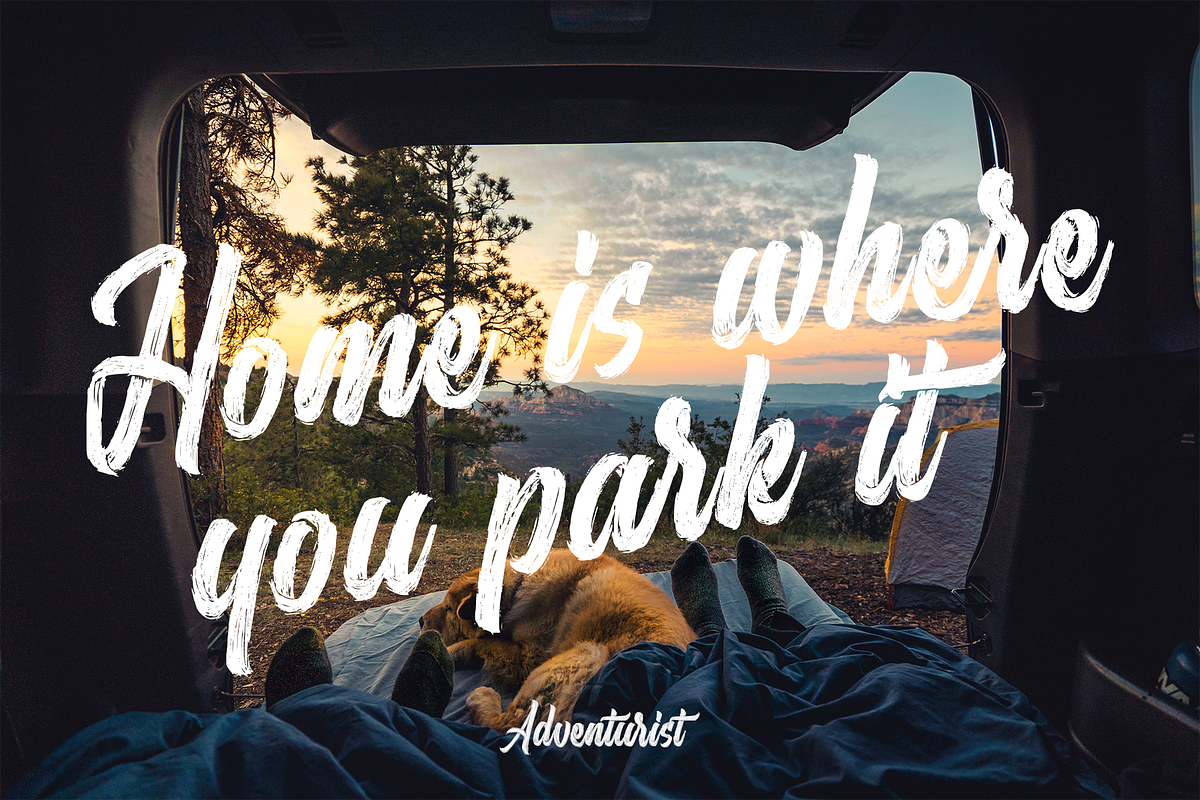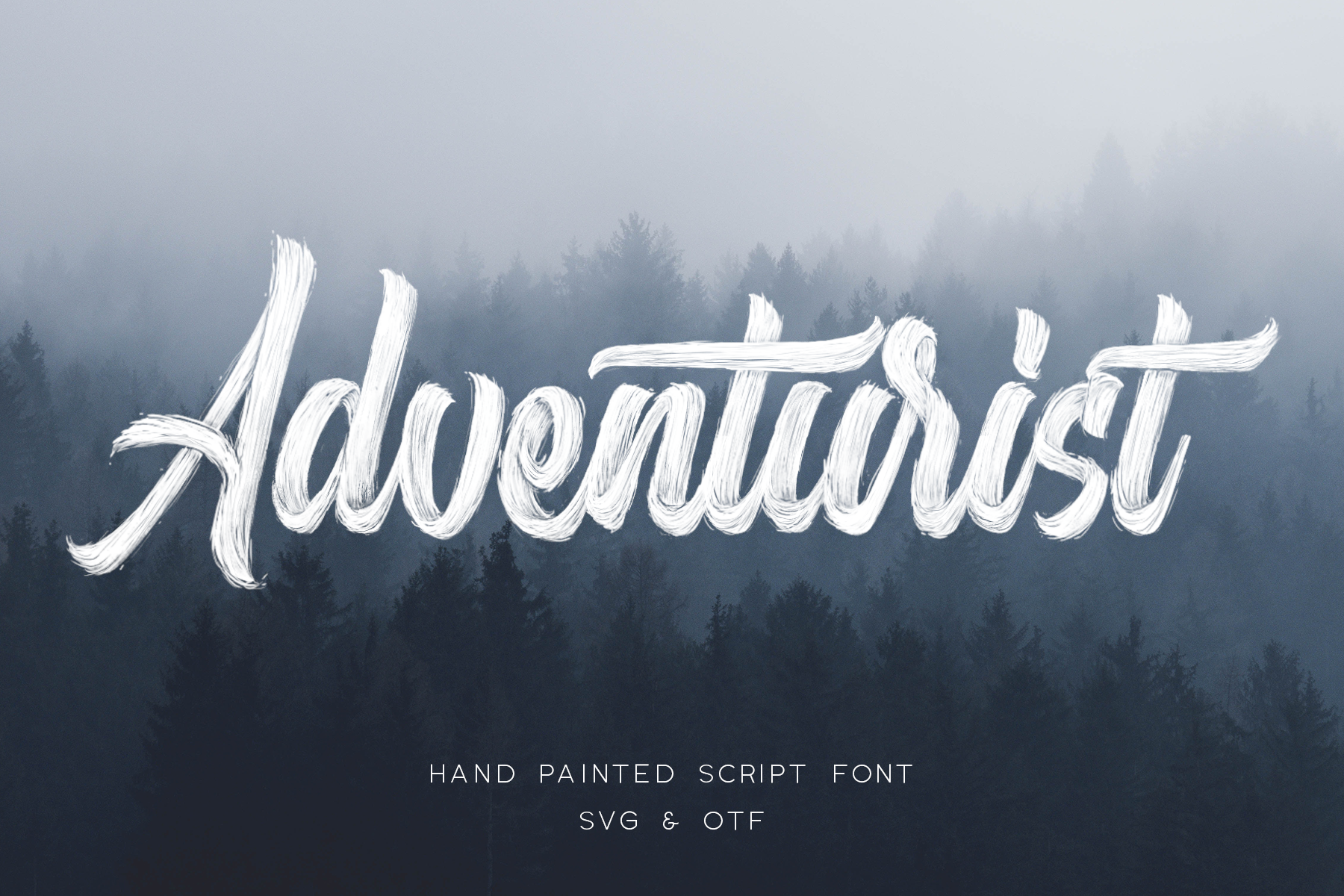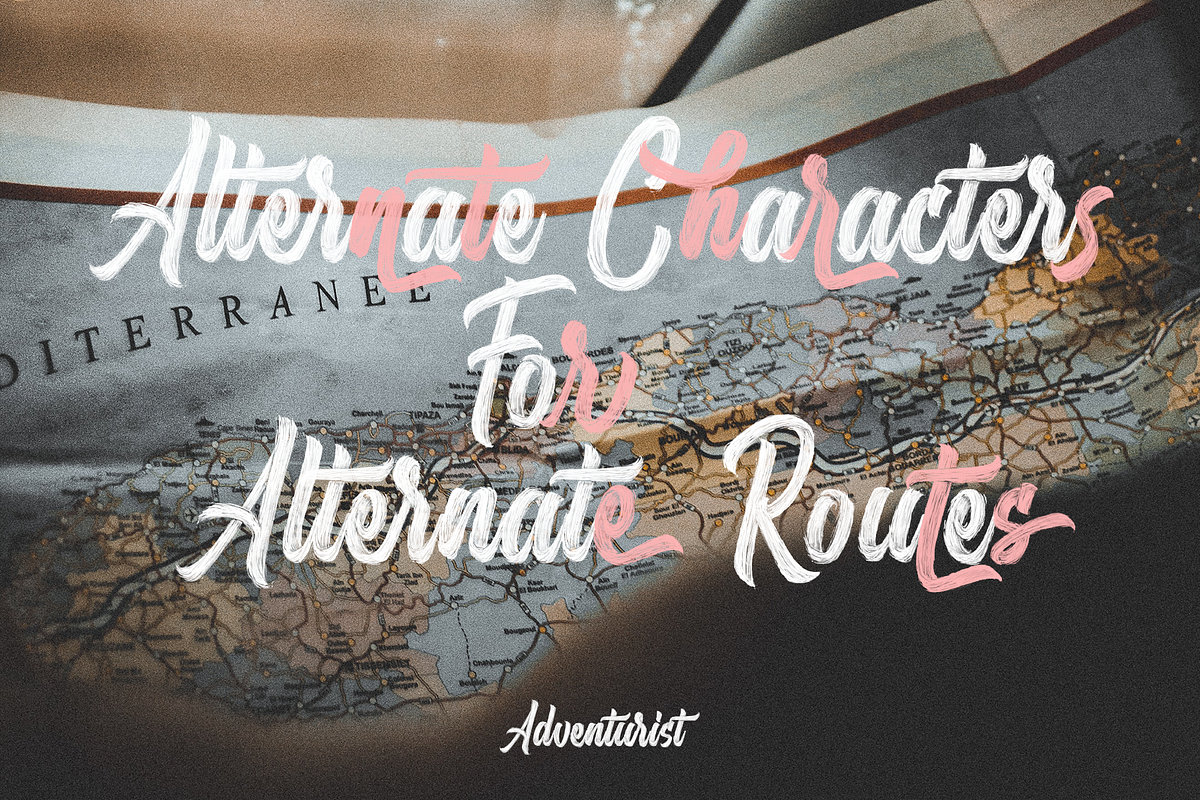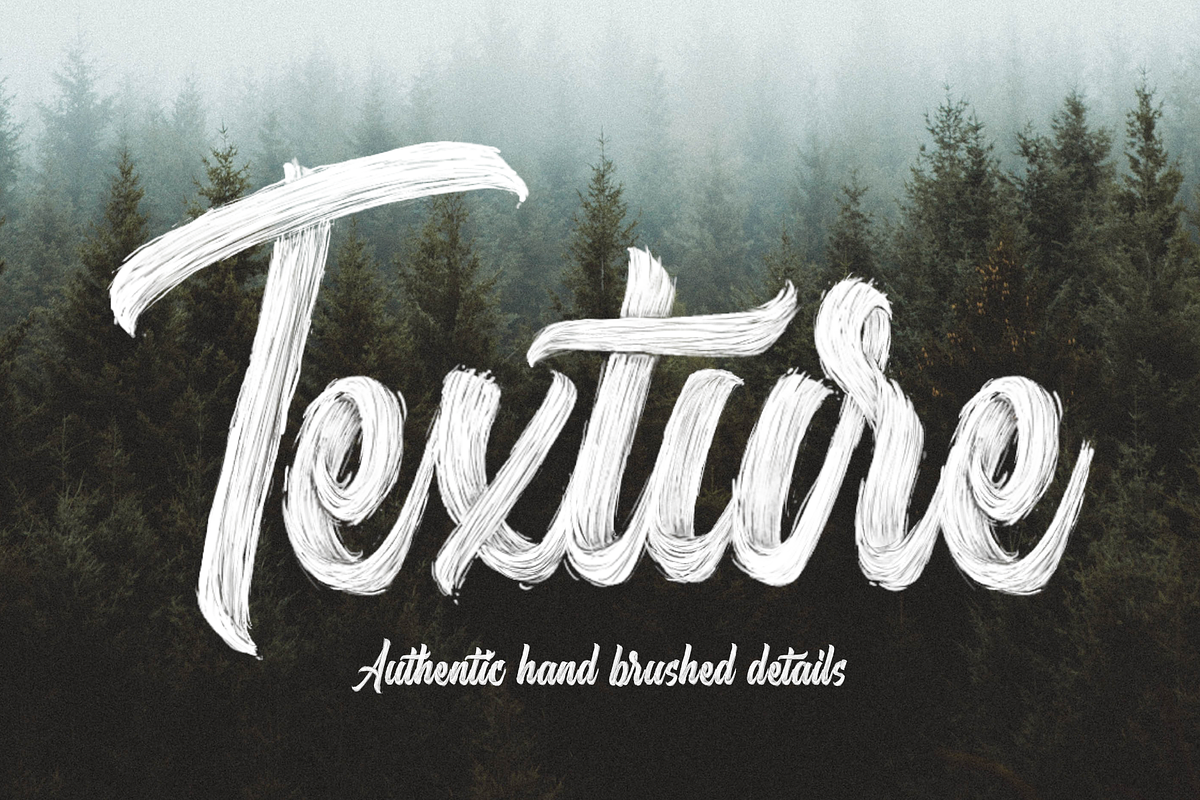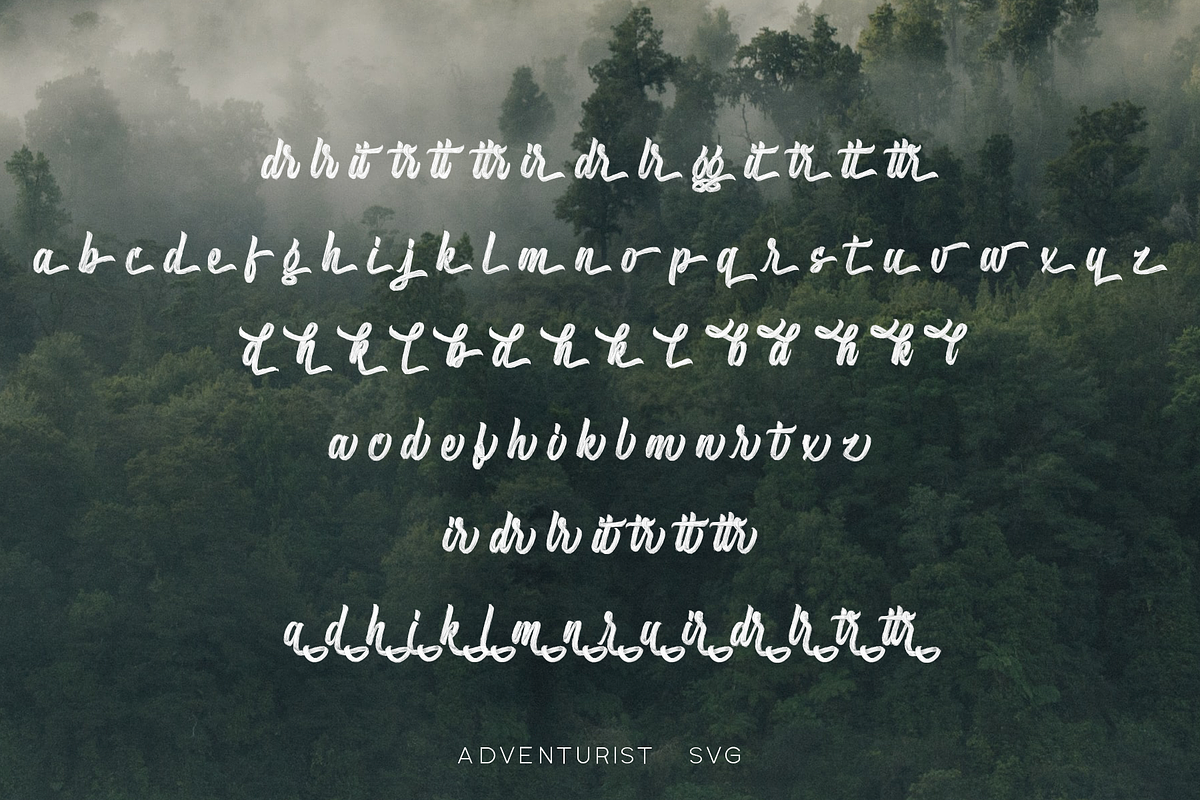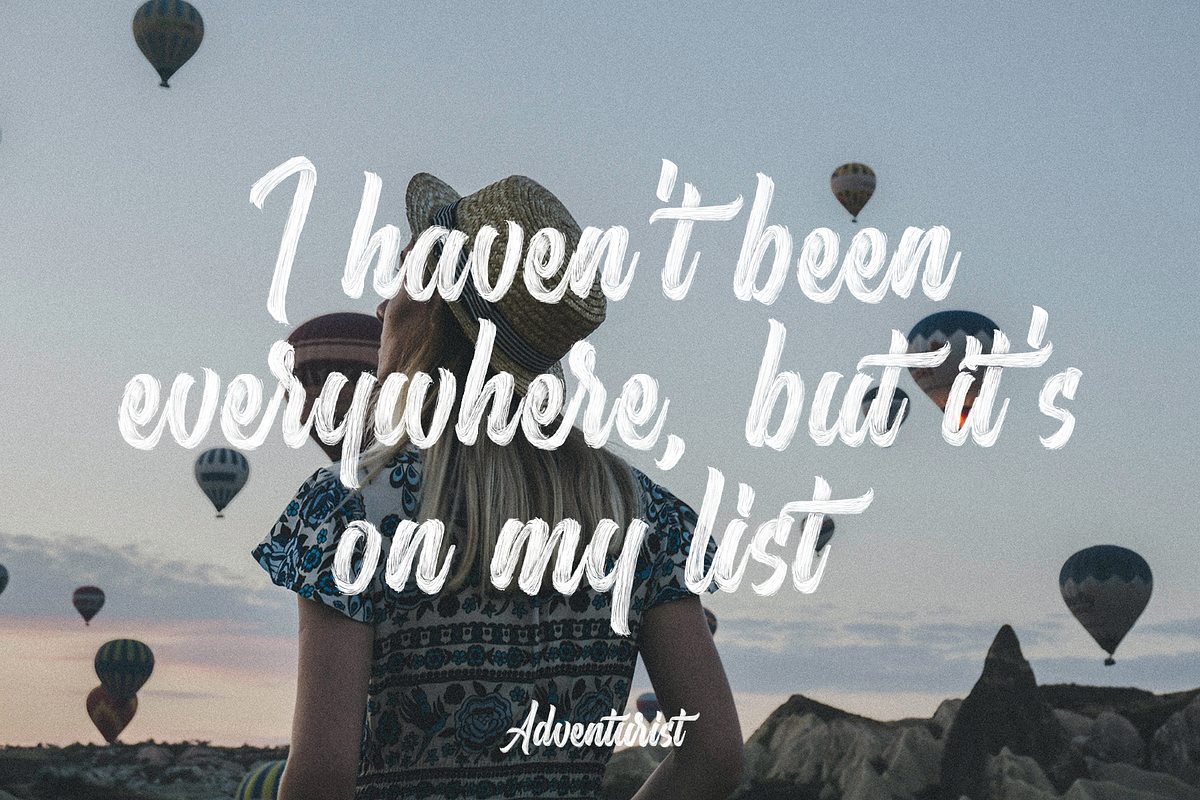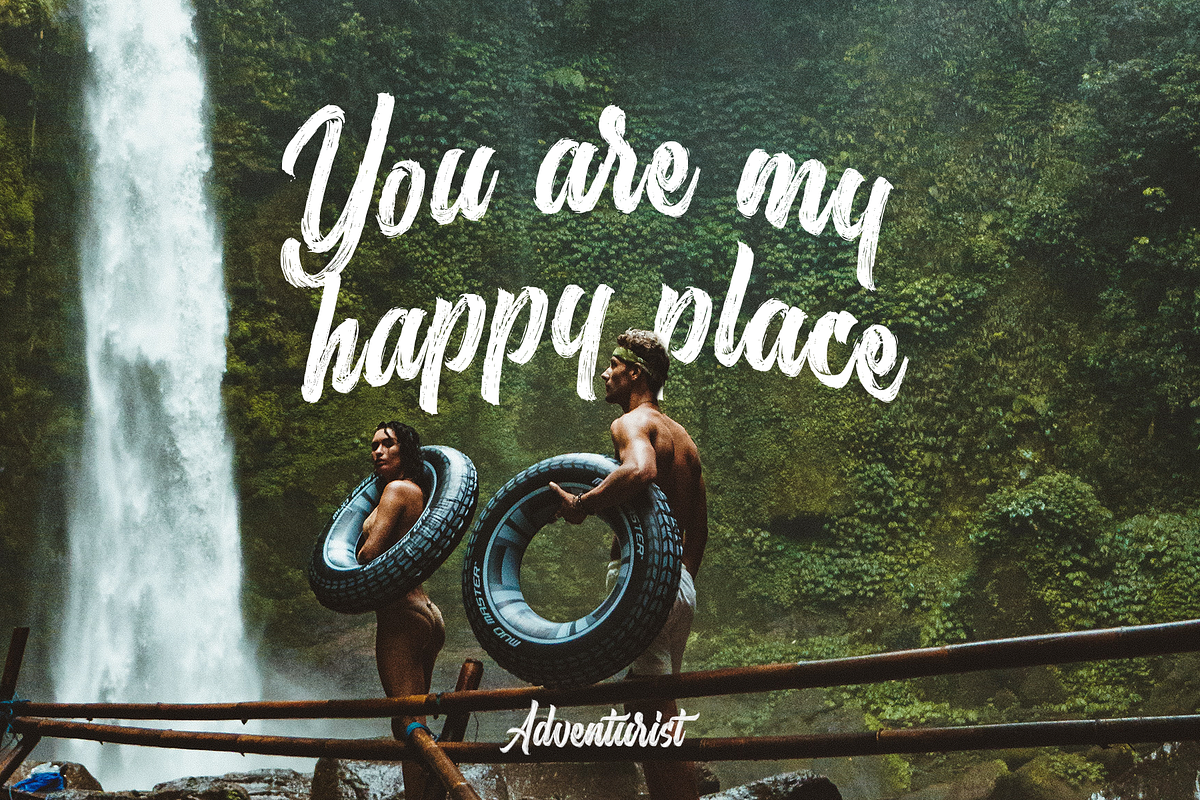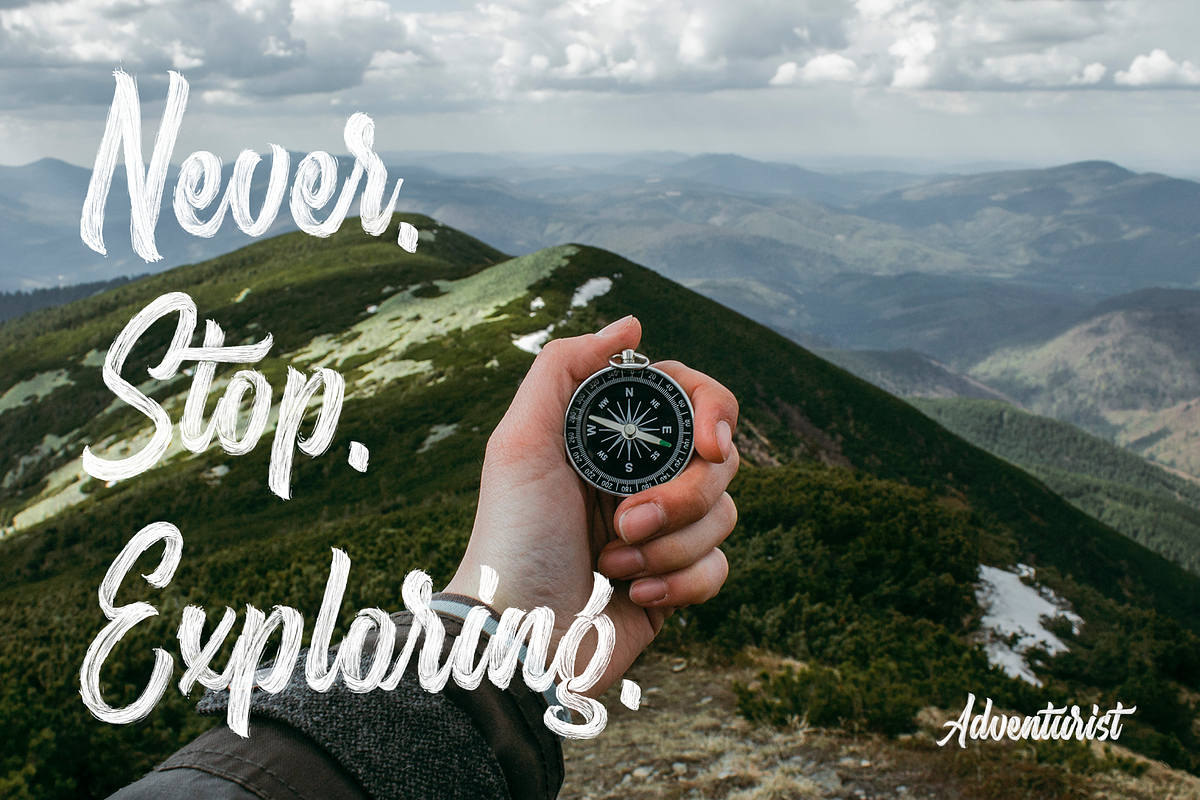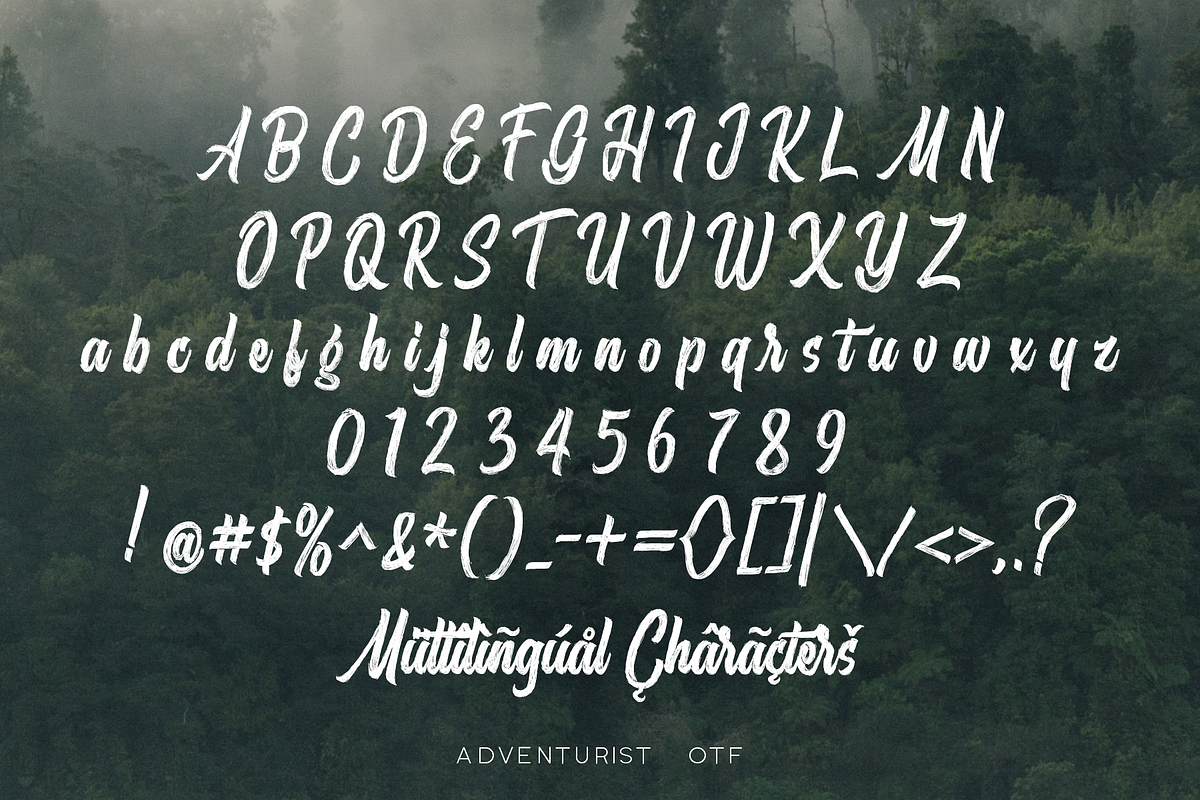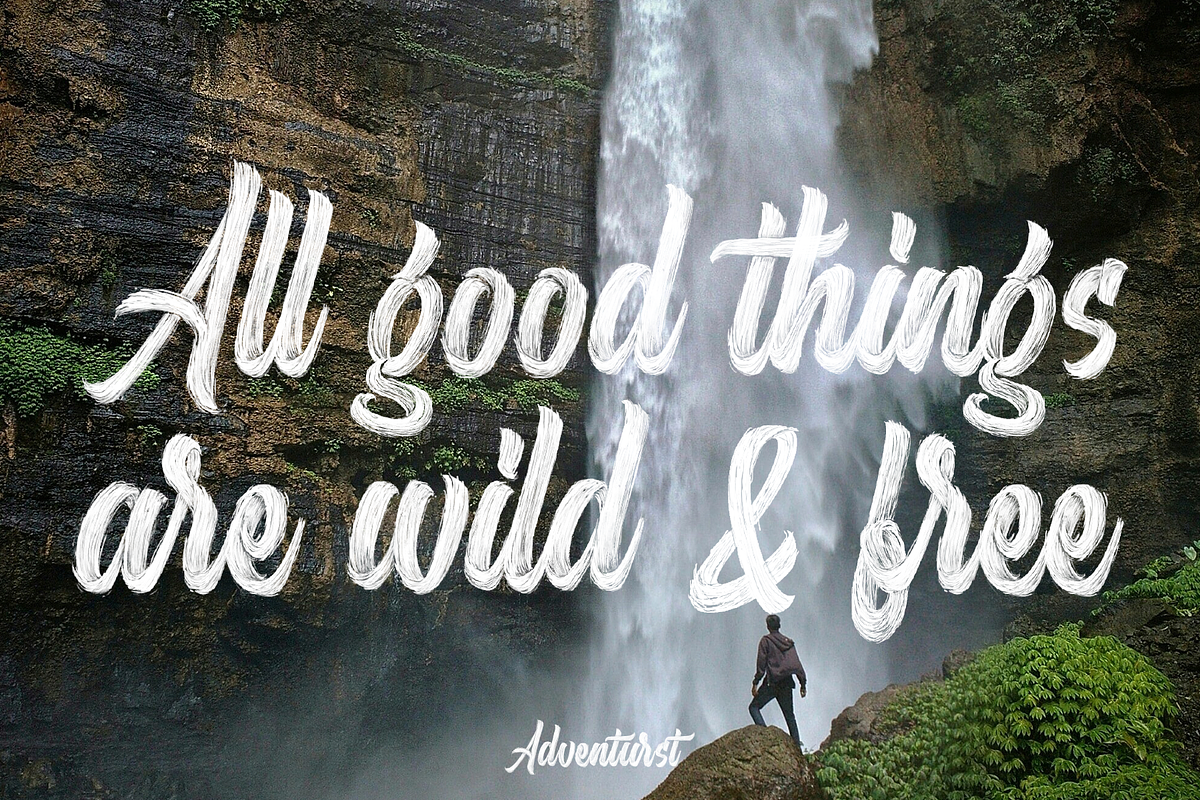
Adventurist - SVG Script Font
Adventurist is a bold hand crafted script font which features a regular .otf version as well as a more detailed SVG version - the perfect pairing for an inspiring journey.
Each version retains a great amount of detail from the original hand painted characters, and they also feature a large number of alternates for creating unique designs.
Perfect for promoting outdoor adventure brands and creating inspiring quotes & titles for various projects.